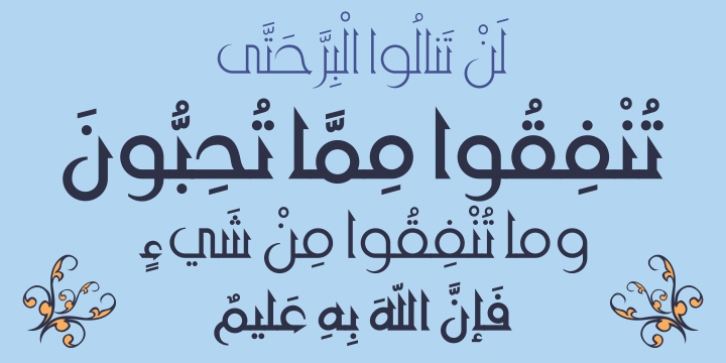
Publisher: Hiba Studio
HS Future was designed by Hasan Afash, Abdulsamiea Salem and published by Hiba Studio. HS Future contains 3 styles and family package options.
HS Future is the second version of the font FS Future which was designed by the type designer Abdulsamiea Rajab Salem and the fonts group of Future Soft company fonts. It is a leading company in Arabization field and producing the Arabic and Islamic programs beside the children programs. Those fonts appeared between 1998 and 2000.
In this version there were a lot of adjustments to keep the font in its spirit and uniformity between the various characters. Also added were some new characters, which gave him another beautiful addition to the beauty of his modern idea. It has a serif in the shape of an arrow.
Two new weights (Regular and Bold) have been created. Then the font was converted to OpenType to support Arabic, Persian and Urdu to be compatible with the various operation systems and modern software.
The smoothing of this font and the combination of straight and curved parts using the serif in the shape of an arrow made it a beautiful typeface appropriate to the titles, and able to meet the desire of the user in the design of ads and modern designs of various types of audio and visual.
HS Future is the beginning of the fruits of cooperation between designers and Hassan Abu Afash and Abdulsamiea Rajab Salem for the production and development of many modern fonts.
· HS Future Thin
· HS Future
· HS Future Bold